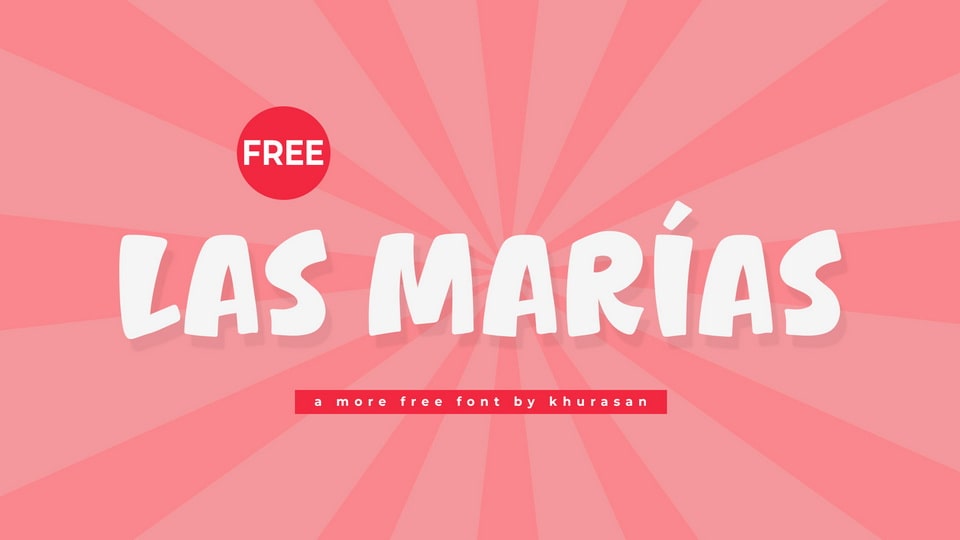
Download Las Marias font, a bold, friendly, and joyful hand-crafted cartoon typeface that radiates positivity and creativity with its playful letterforms, with their rounded edges and cheerful shapes.